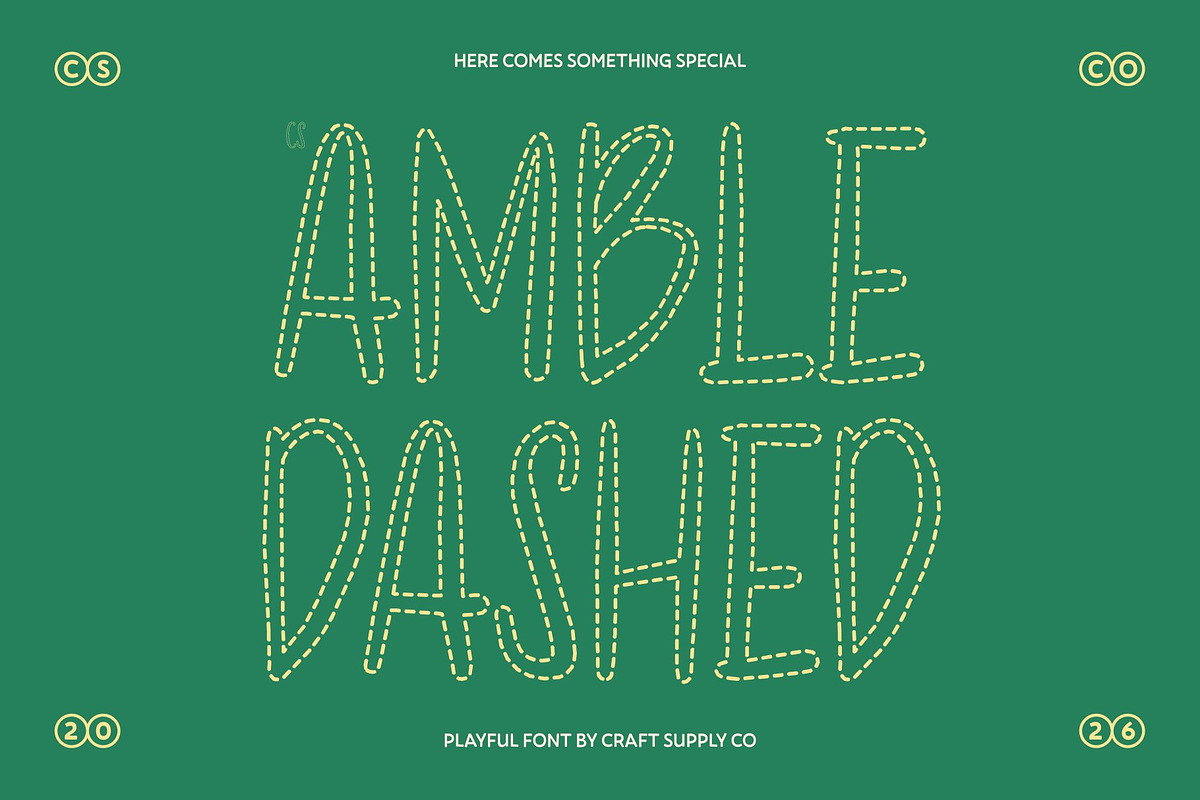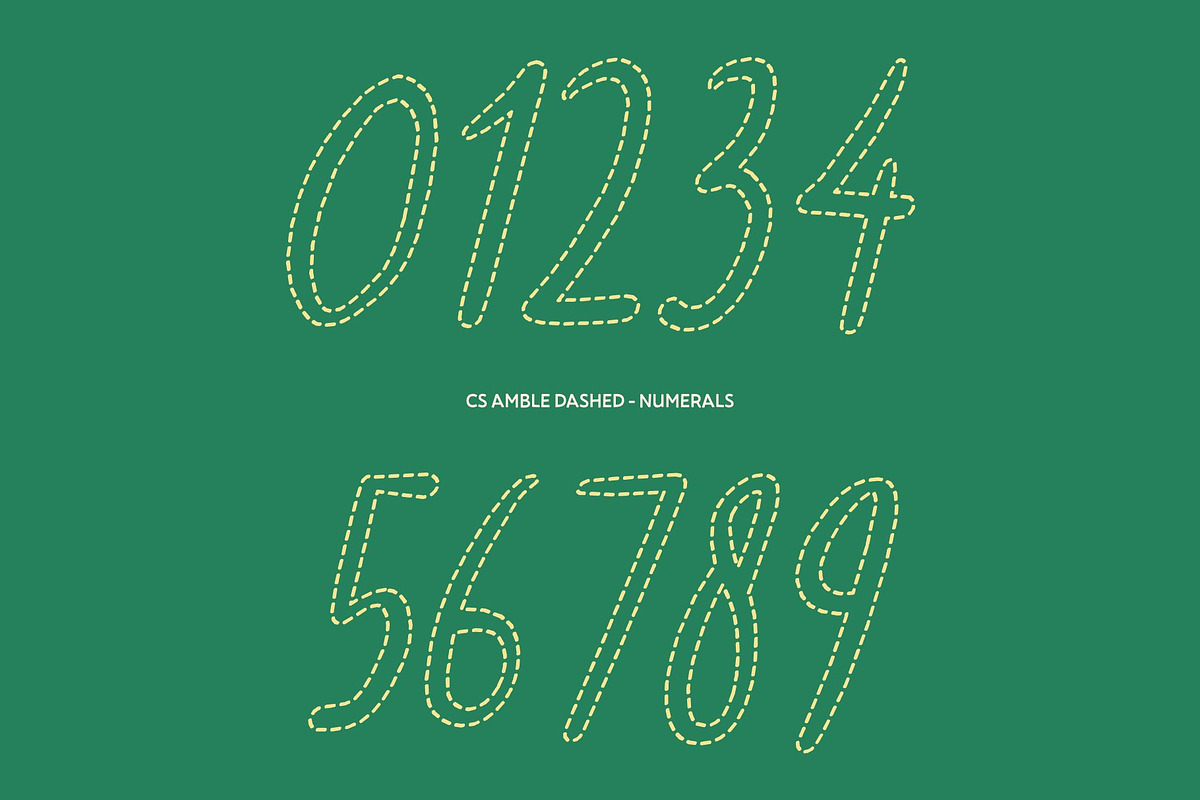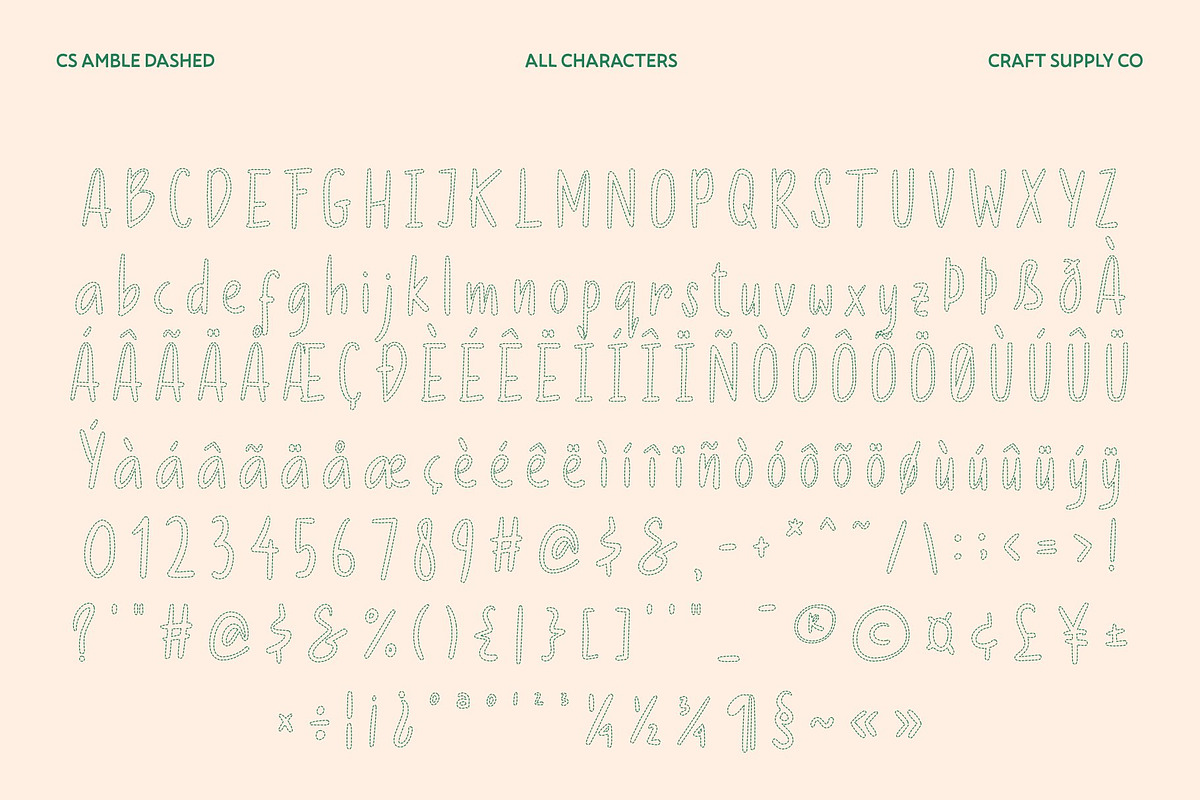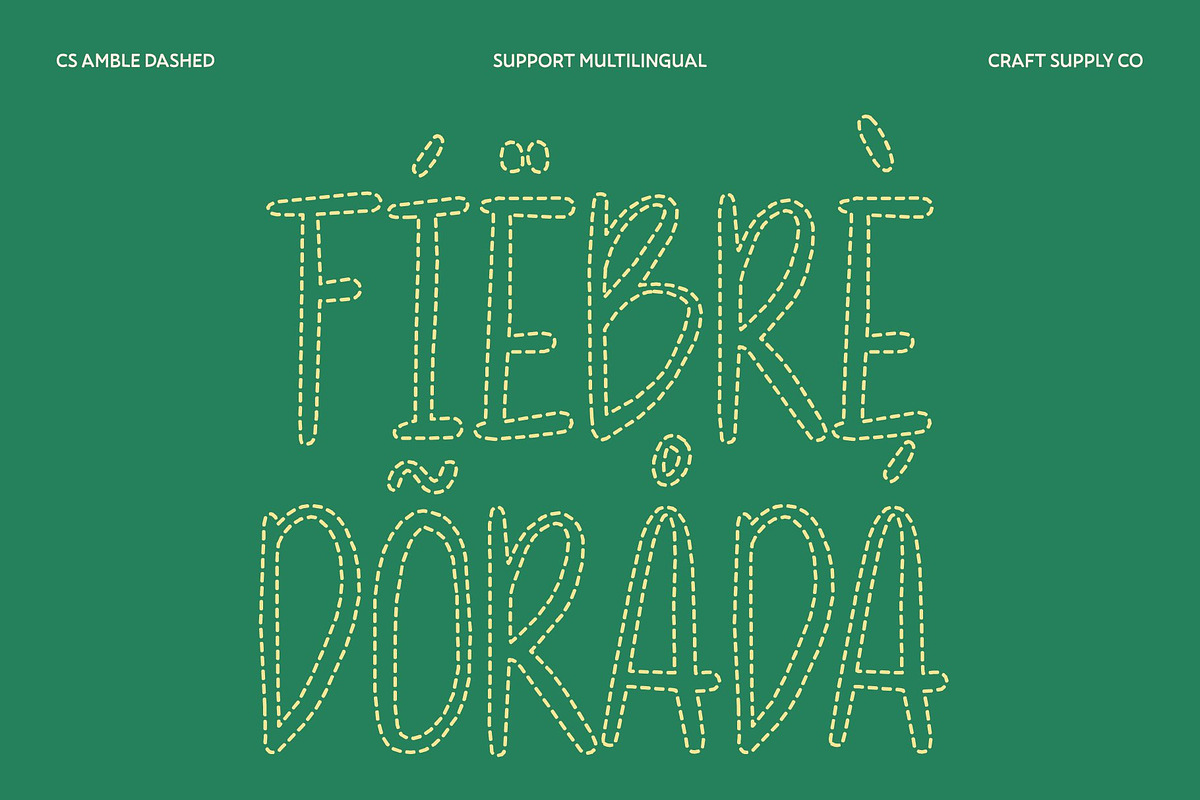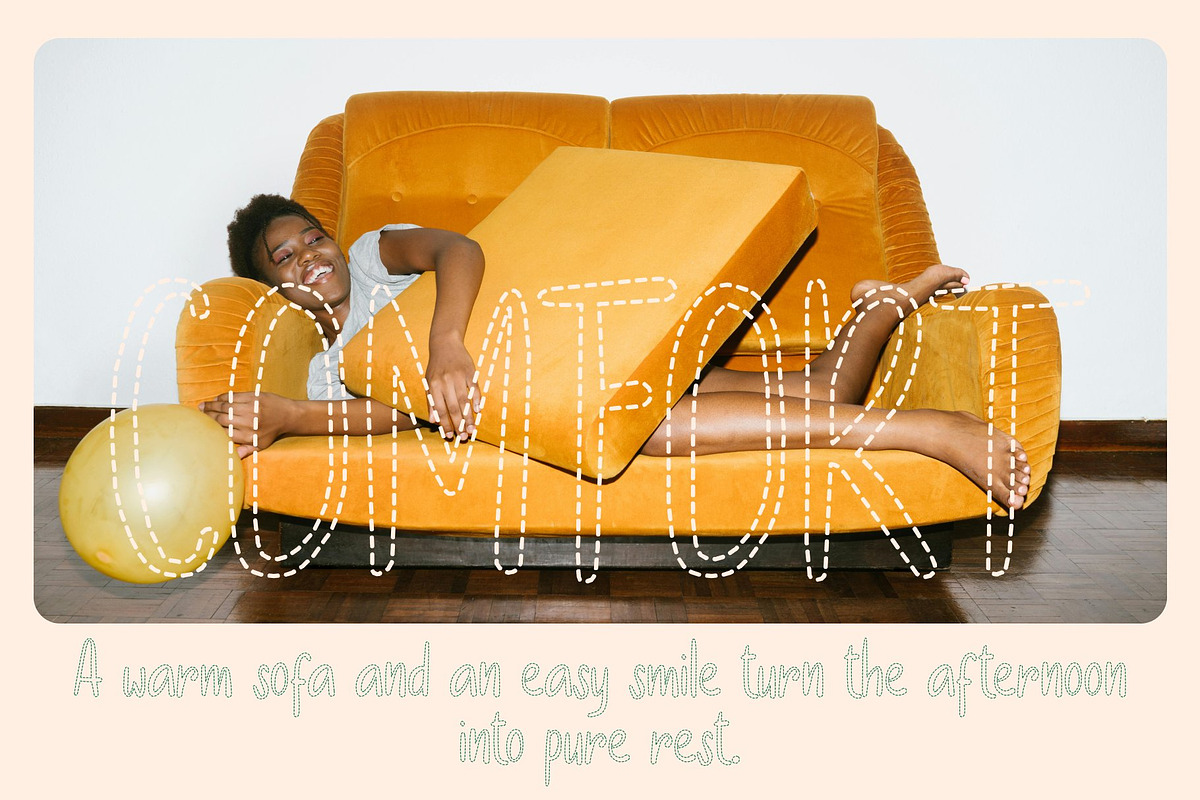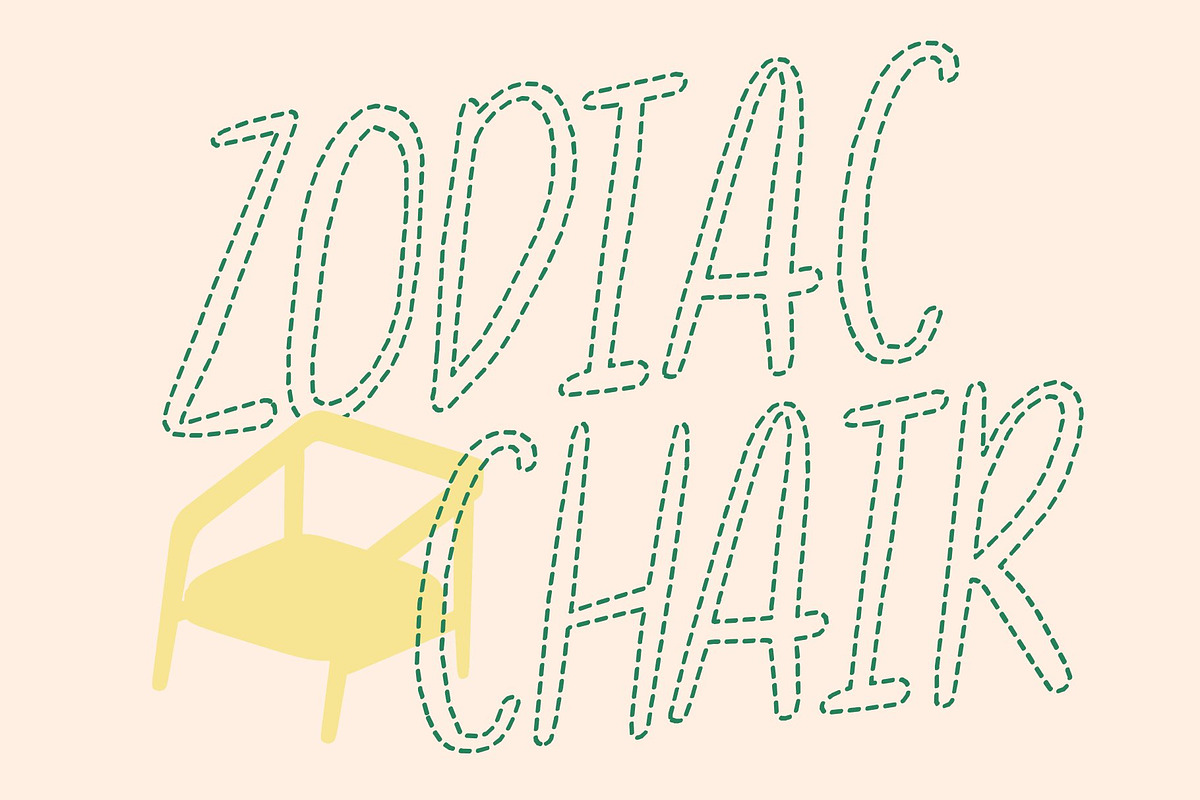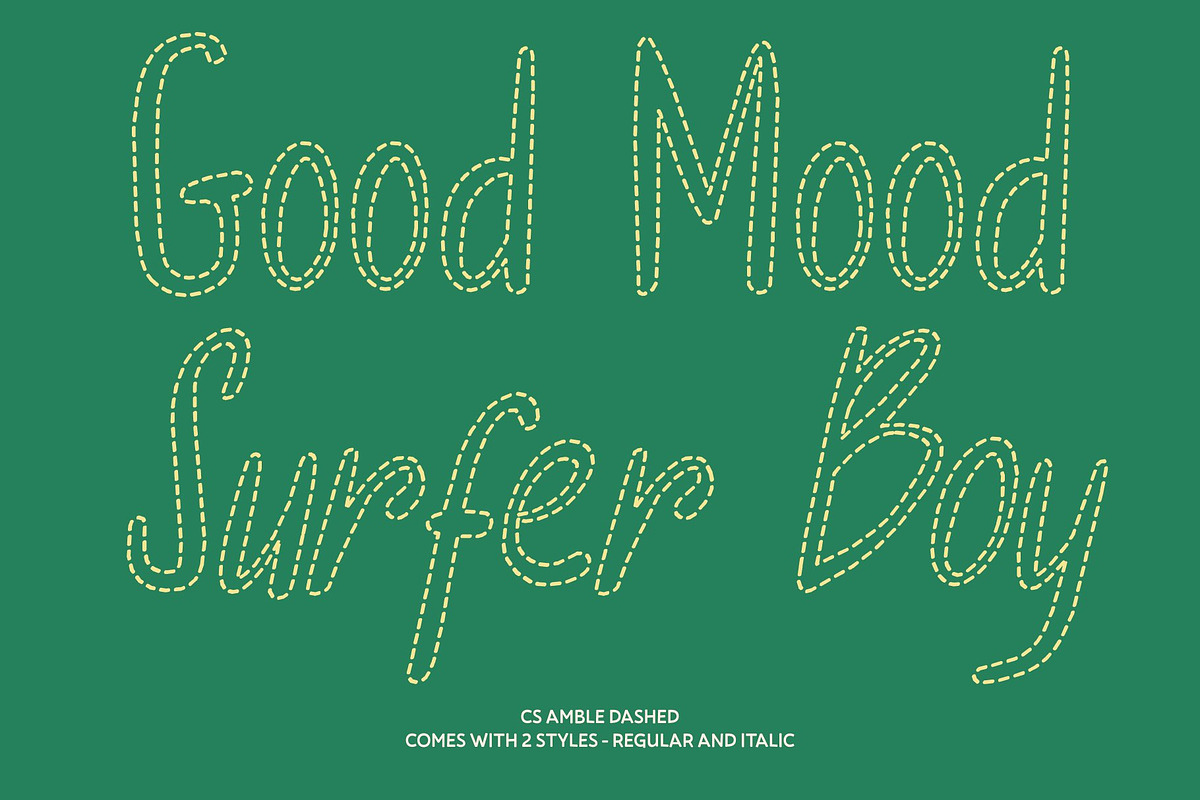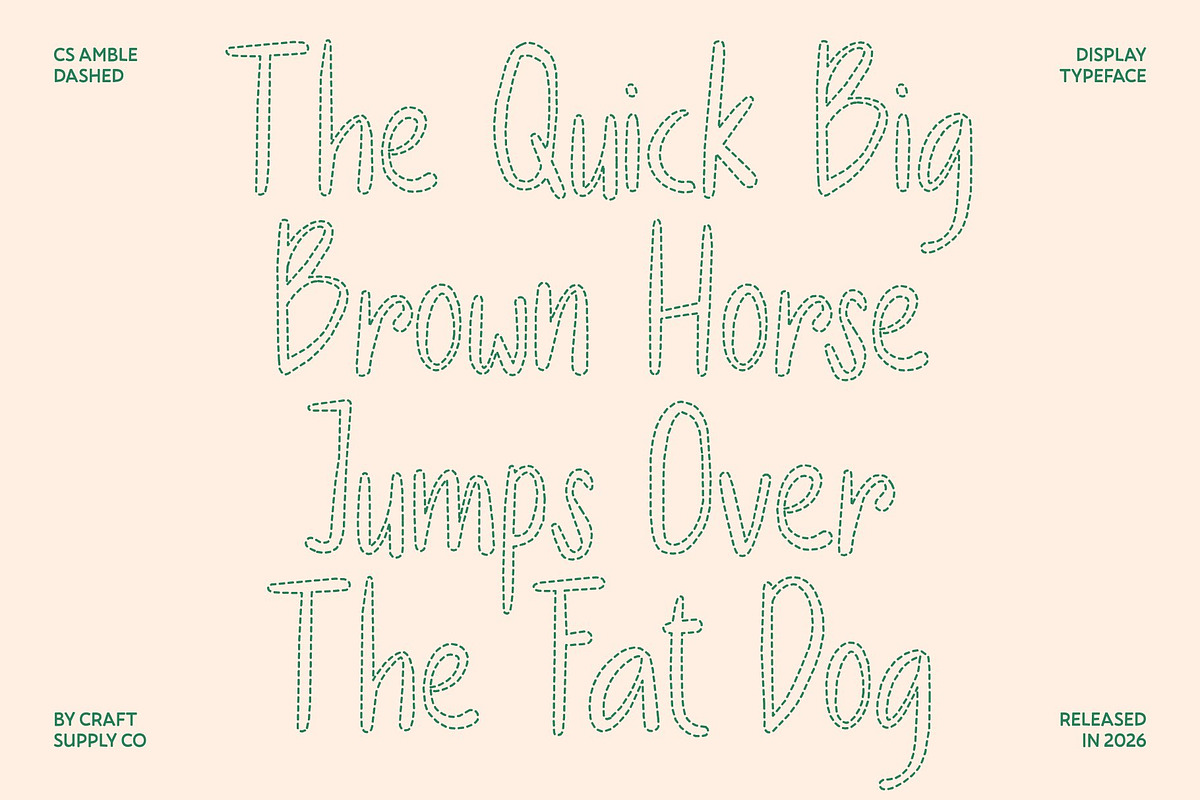
CS Amble Dashed
CS Amble Dashed – Soft Beauty with a Handwritten Heart
Gentle Handwritten Style with Airy Dashed Touch This is a charming handwritten font that radiates warmth and authenticity. Its soft, flowing strokes are enhanced by a distinctive dashed construction each letter formed from delicate, broken segments rather than solid lines. This creates a light, breathable texture that adds a subtle artistic feel while maintaining a clean and modern appearance.
Blending Handwritten Grace with Dashed Sans Clarity What makes this font unique is its harmony between expressive handwritten forms and the clarity of a sans serif structure. The segmented strokes soften the geometric base, introducing a relaxed and creative rhythm. This balance ensures excellent readability while preserving a natural, handwritten charm that feels both polished and approachable.
Soft, Friendly, and Creatively Relaxed With its gentle curves and airy dashed detailing, the font delivers a calm and inviting personality. The broken-line strokes mimic the natural lift of a pen, adding warmth and a handcrafted nuance. It’s perfect for designs that aim to communicate sincerity, care, and creativity in a subtle, elegant way.
Perfect for Branding and Everyday Elegance This is ideal for branding, posters, postcards, packaging, letters, and social media visuals. Its soft personality and versatile style make it a go-to choice for projects that need friendliness with refinement. The dashed structure transforms simple text into a heartfelt visual expression bringing charm, clarity, and a beautifully human touch to every design.
CS Amble Dashed Regular
CS Amble Dashed Italic